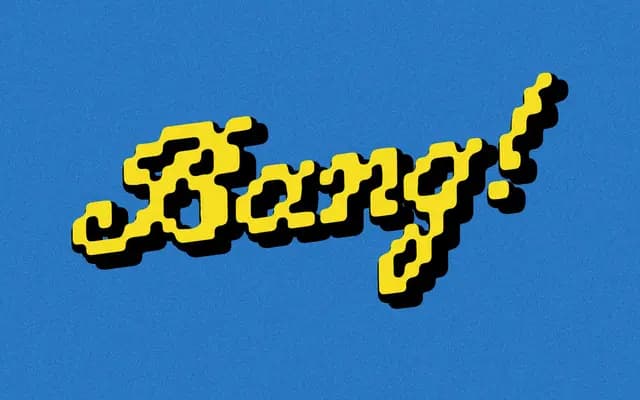
Bang!
A single-weight display face drawn from cross-stitch and embroidery references, with a deliberately loose, stitched character.
Built from a late-night detour through cross-stitch imagery, the face trades the rigid grid typical of needlework lettering for something more relaxed and irregular. It ships as a single Regular weight covering 220 glyphs with broad Western European language support including Icelandic and Welsh. Best suited to casual branding, packaging and social graphics where a handmade, textile-adjacent quality is the point.
A single-weight display face inspired by cross-stitch and embroidery aesthetics, with an intentionally irregular, stitched quality rather than a clean geometric or calligraphic construction.